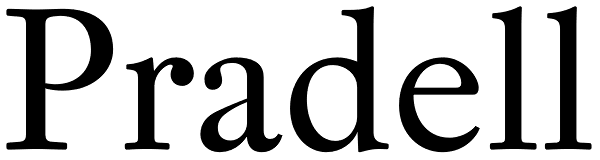
Pradell
Pradell is a Latin text family based on original Spanish 18th century type specimens. More exactly on those type specimens showing the types cut by Catalan punchcutter Eudald Pradell (1721-1788). It is a type family specially designed for literary...